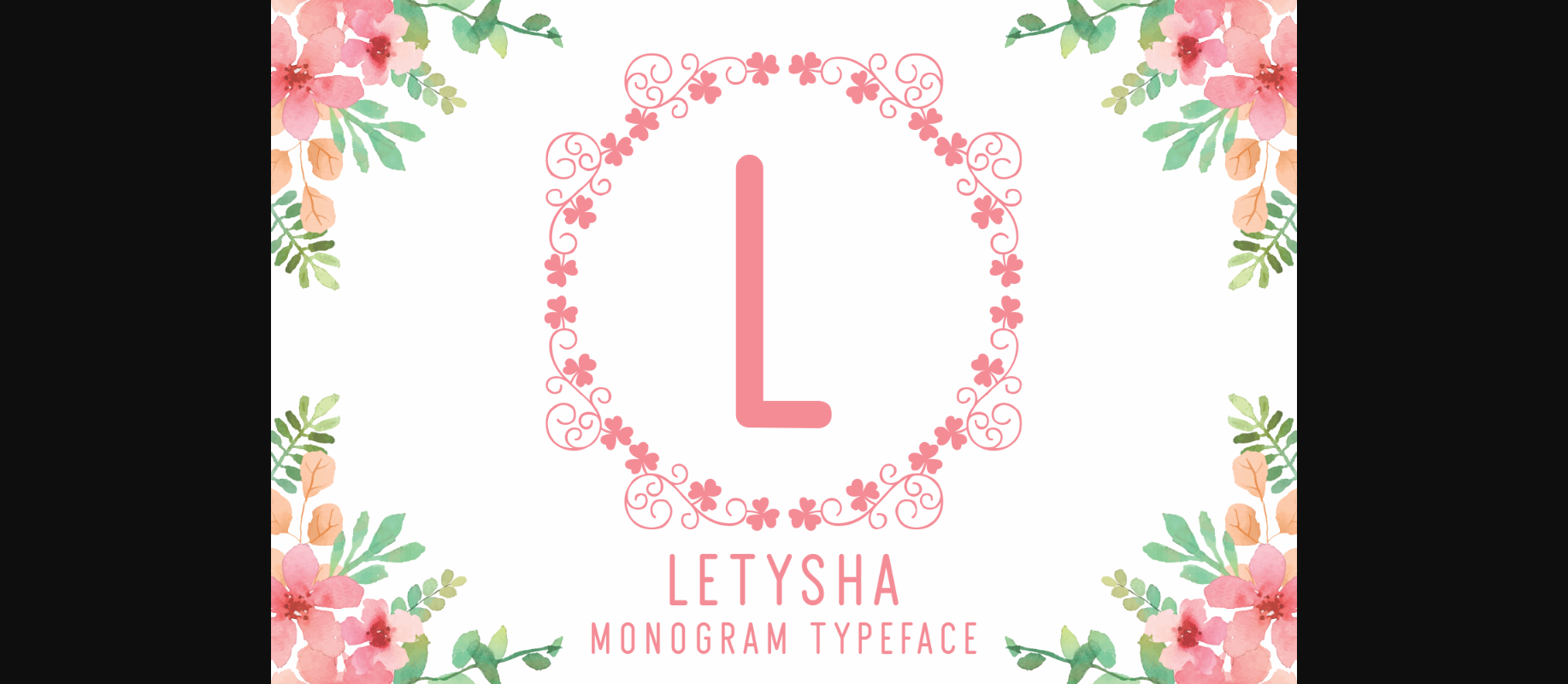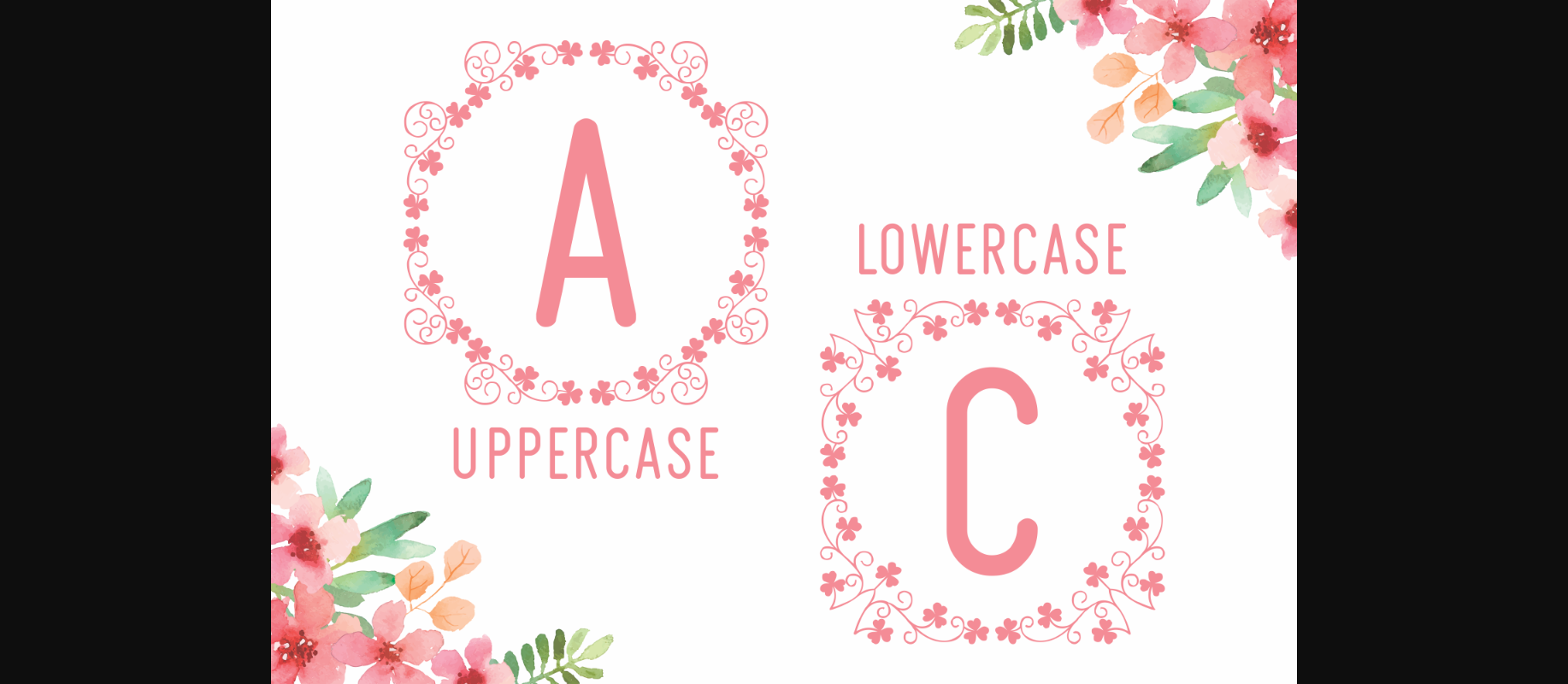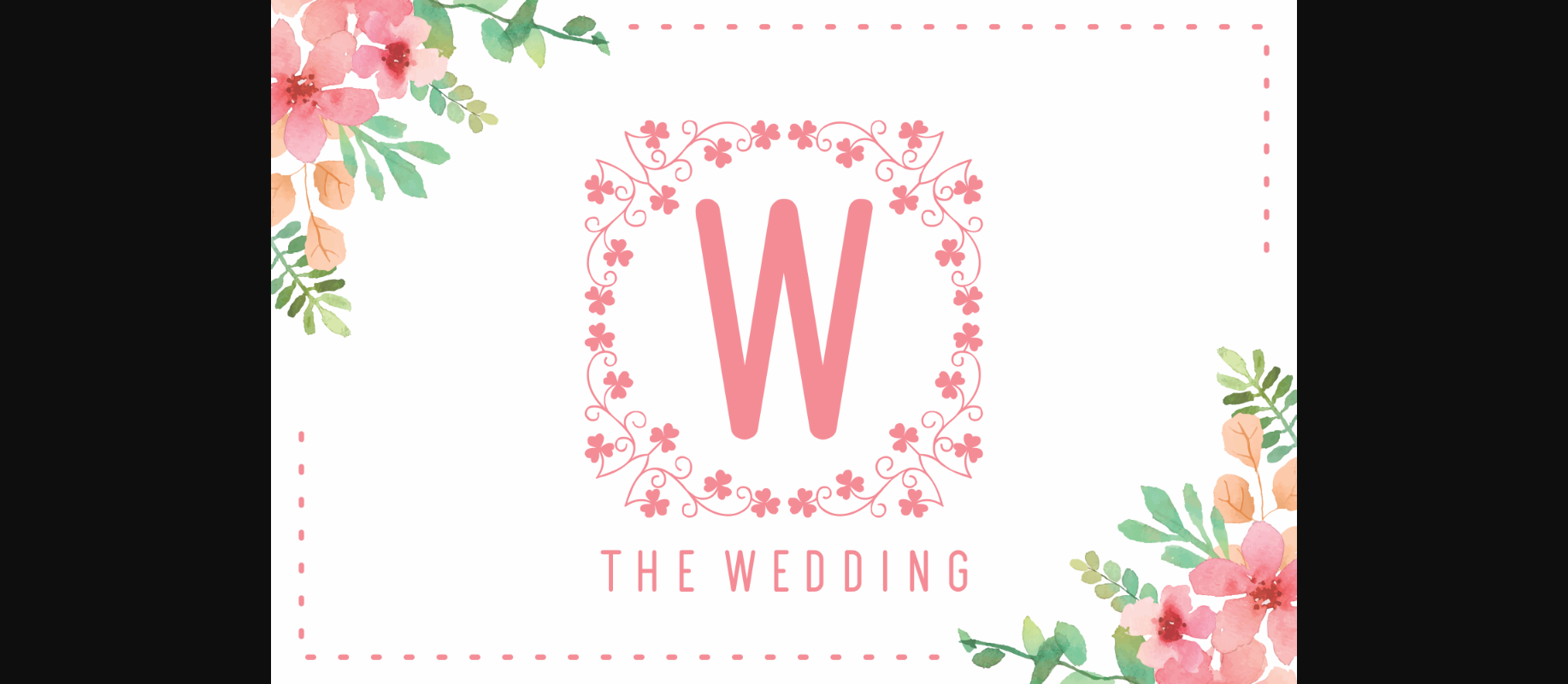
About Letysha Font
Letysha is a superb decorative font. Fall in love with its incredibly versatile style and use it to create gorgeous wedding invitations, beautiful stationary art, eye-catching social media posts, and much more!